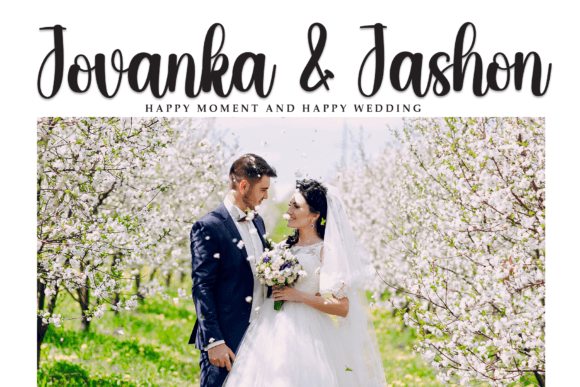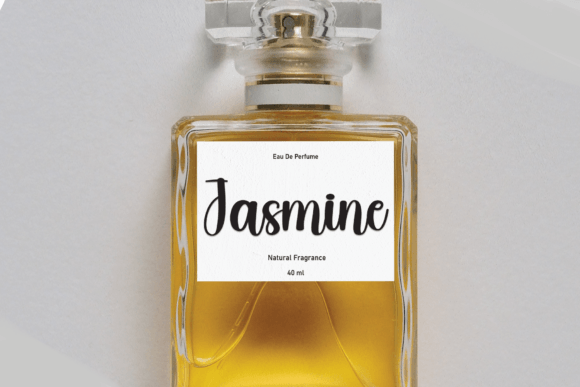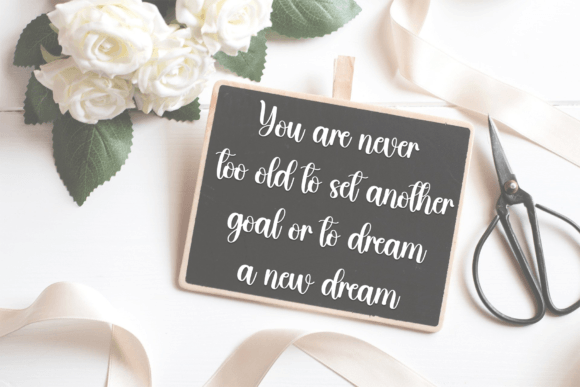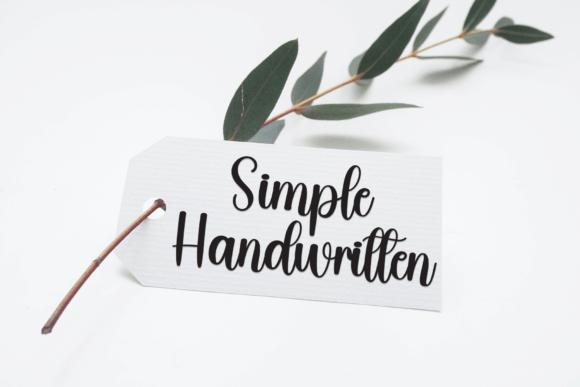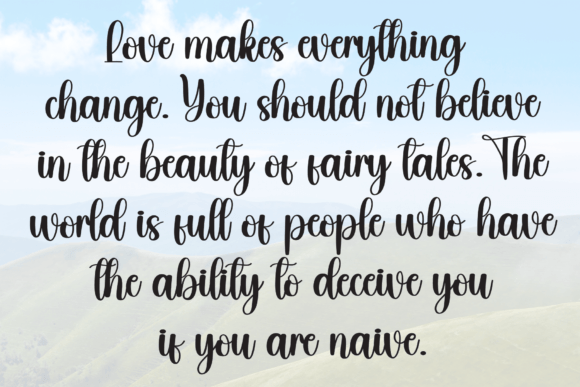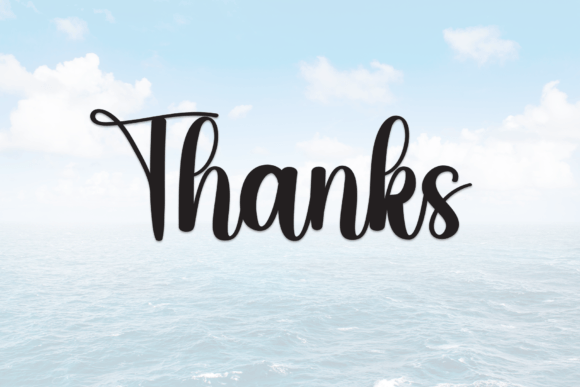
Introducing Atlantic Font: A Romantic and Sweet Calligraphy Typeface
Are you a designer or crafter looking for a font that exudes elegance and sophistication? Look no further than Atlantic Font, a romantic and sweet calligraphy typeface that is sure to capture your heart. With its casual yet elegant touch, Atlantic Font is perfect for a variety of design projects, from wedding invitations and stationery to branding and packaging.
What is Atlantic Font?
Atlantic Font is a beautiful calligraphy typeface that features characters that dance along the baseline, creating a sense of movement and fluidity. The font has a romantic and whimsical feel, making it perfect for designs that require a touch of elegance and sophistication. Whether you’re creating a wedding invitation, a logo, or a social media graphic, Atlantic Font is sure to add a touch of class and refinement.
Key Features of Atlantic Font
- Romantic and sweet calligraphy style: Atlantic Font features a beautiful, flowing script that is perfect for designs that require a touch of elegance and sophistication.
- Casual yet elegant touch: The font has a relaxed, casual feel that is perfect for designs that require a touch of whimsy and playfulness.
- Characters that dance along the baseline: The characters in Atlantic Font are designed to flow along the baseline, creating a sense of movement and fluidity.
- Perfect for a variety of design projects: Atlantic Font is versatile and can be used for a variety of design projects, from wedding invitations and stationery to branding and packaging.
Who is Atlantic Font for?
Atlantic Font is perfect for designers and crafters who are looking for a font that exudes elegance and sophistication. Whether you’re a professional designer or a DIY crafter, Atlantic Font is a great choice for anyone who wants to add a touch of class and refinement to their designs.
How to Use Atlantic Font
Atlantic Font can be used for a variety of design projects, including:
- Wedding invitations and stationery: Atlantic Font is perfect for wedding invitations, save-the-date cards, and other stationery.
- Branding and packaging: The font can be used for logos, business cards, and packaging.
- Social media graphics: Atlantic Font can be used to create social media graphics, such as Facebook posts and Instagram stories.
- Signs and banners: The font can be used for signs and banners, such as welcome signs and directional signs.
Tips for Using Atlantic Font
- Use it sparingly: Atlantic Font is a beautiful font, but it can be overwhelming if used too much. Use it sparingly to add a touch of elegance and sophistication to your designs.
- Pair it with a simple font: Atlantic Font pairs well with simple fonts, such as Arial or Helvetica. Use a simple font for body text and Atlantic Font for headings.
- Experiment with colors: Atlantic Font looks great in a variety of colors, from bold and bright to soft and pastel.
Atlantic Font is a beautiful and elegant calligraphy typeface that is perfect for designers and crafters who want to add a touch of sophistication to their designs. With its romantic and sweet style, Atlantic Font is sure to capture your heart. Whether you’re creating a wedding invitation, a logo, or a social media graphic, Atlantic Font is a great choice.